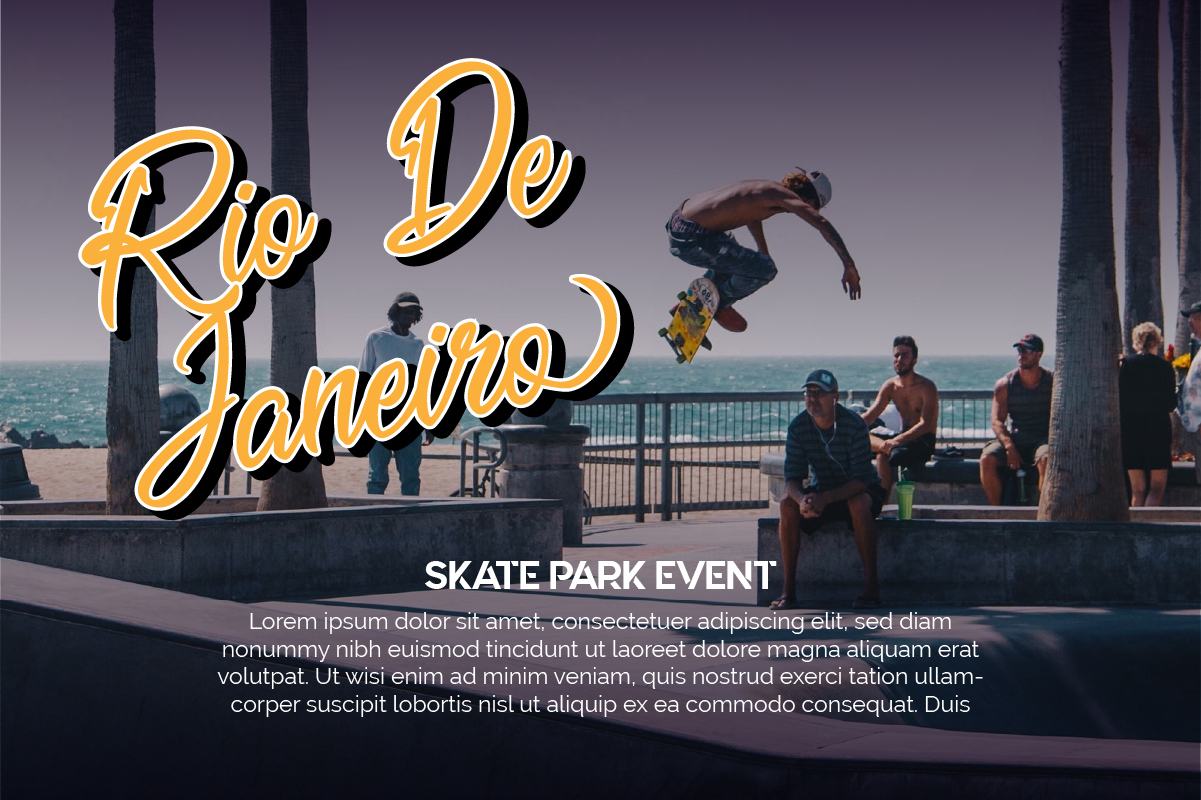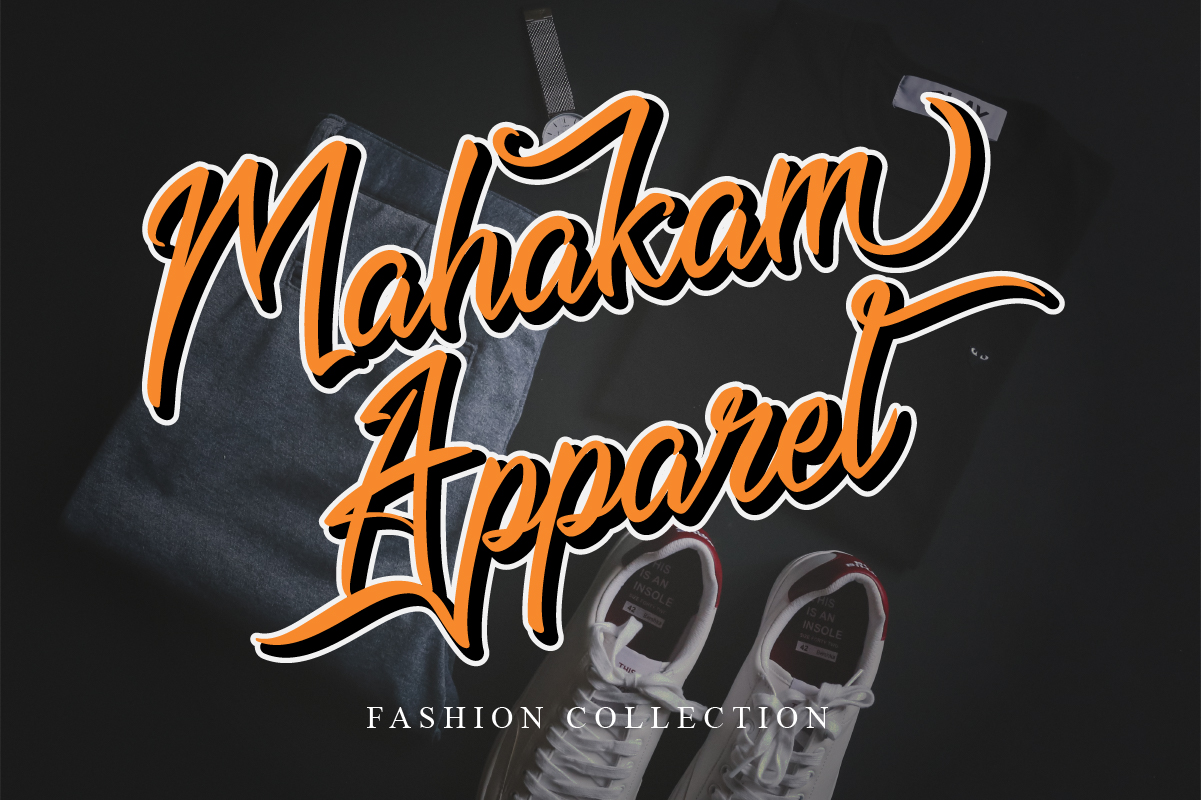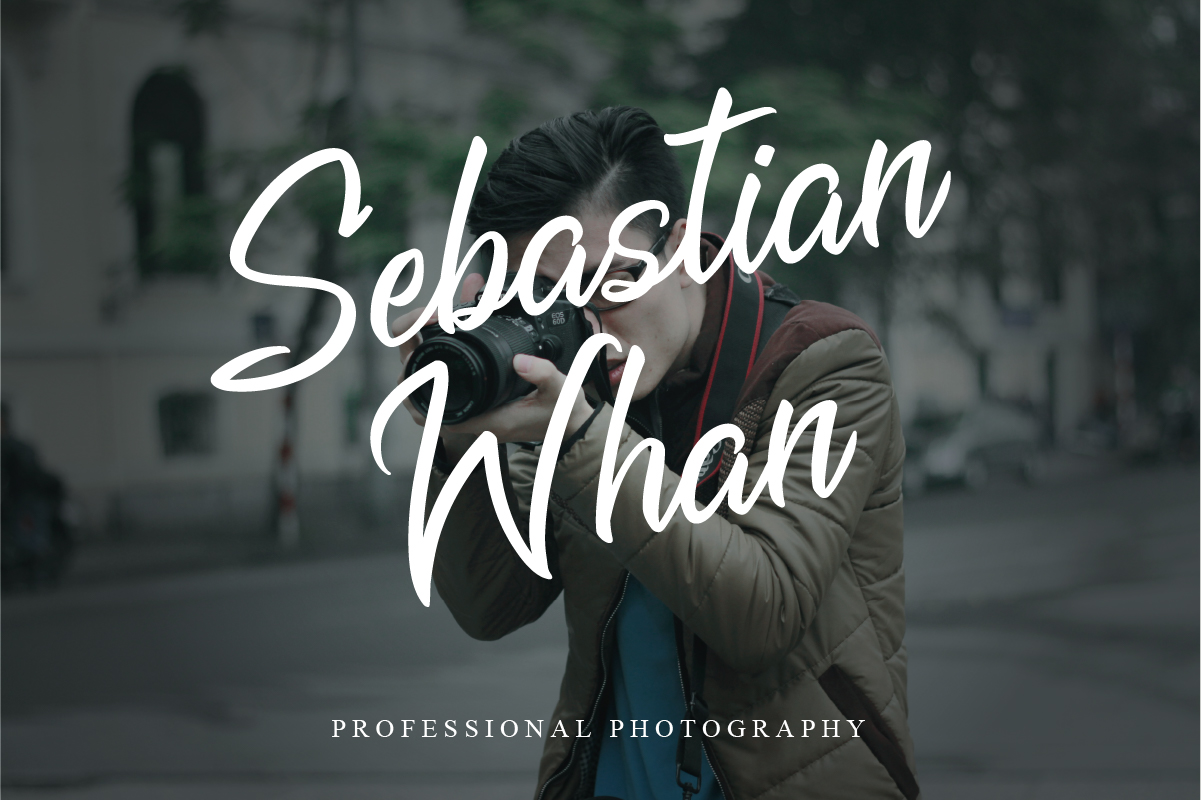
Brightmoon Font
Brightmoon Script Font
It’s a modern and stylish script font that emanates sophistication and elegance. Its stylish alternates and ligatures make this font the perfect match for any project especially for logotype, apparel, invitation, branding, packaging, advertising etc.